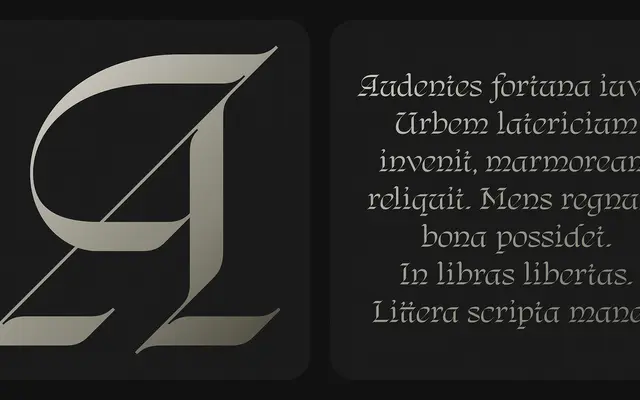
Regnio
A single-weight blackletter display face that softens Renaissance calligraphic forms into something cleaner and usable for contemporary luxury branding.
Regnio takes the angular drama of Renaissance blackletter and smooths it into a more approachable single-weight display font. Ligature support is generous, including discretionary pairs such as THE, EA and LA, and stylistic alternates offer variation on key characters. The extended Latin character set makes it workable across multiple Western European languages, though its weight range limits it to headline and logotype use.
Regnio draws directly on blackletter calligraphy traditions of the Renaissance, but simplifies and contemporises the letterforms into a single-weight display face suitable for luxury branding contexts.